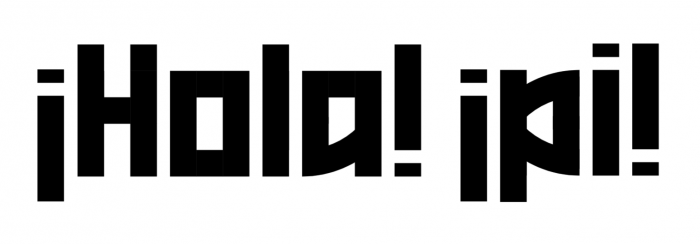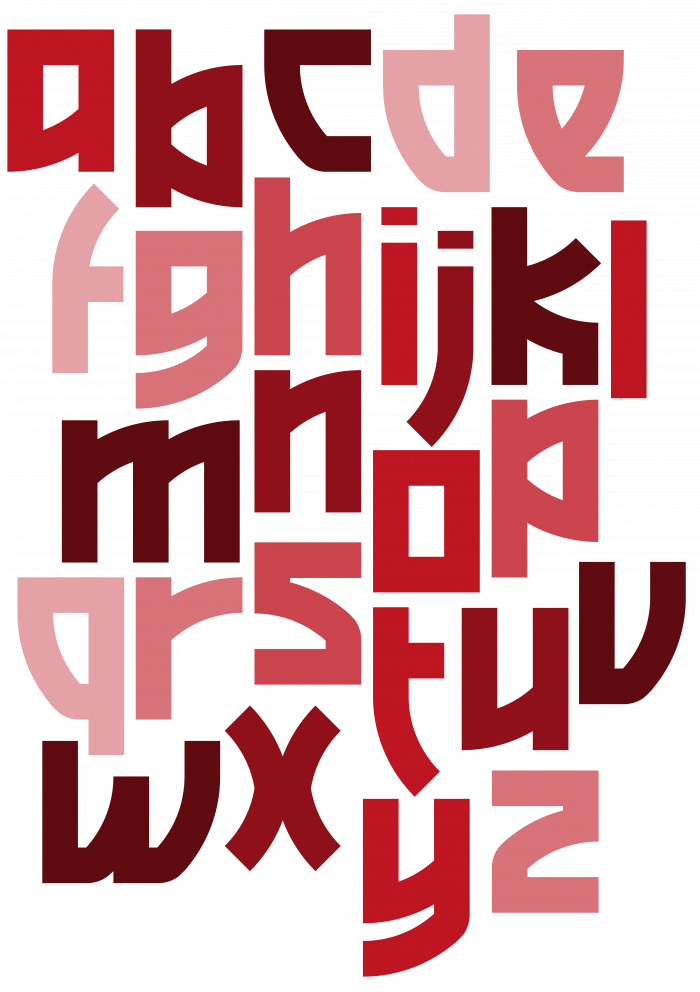
Another small grid experiment using 2x2 filters? This font looks pretty nice.
Thanks @BWM. Yes, the x-height is only one brick. Small grid fonstructions really benefit from working with 2x2 filters.
It's a very pretty half arch with which you've built most of the curves... A solid, legible font with personality. I like it! My only "but" is that you should bring the "¡" down to the level of the descenders (although I also don't understand what this pretty font has to do with the name you've chosen for it ? ). Good work!
Thanks for the advice @elmoyenique, I changed that.
Btw, there must be a brick out of place somewhere for the space between the lines to be that big, don't you think?
@elmoyenique: I think it is a side effect of 2x2 filters and nudging bricks into place...
Typical four work again, you seem to find new ways to bring forms we havent seen yet every single time, nothing less than extraordinary !!
Congrats on the TP, compa! I'm with Sed4tives once again.
Genius work my friend.